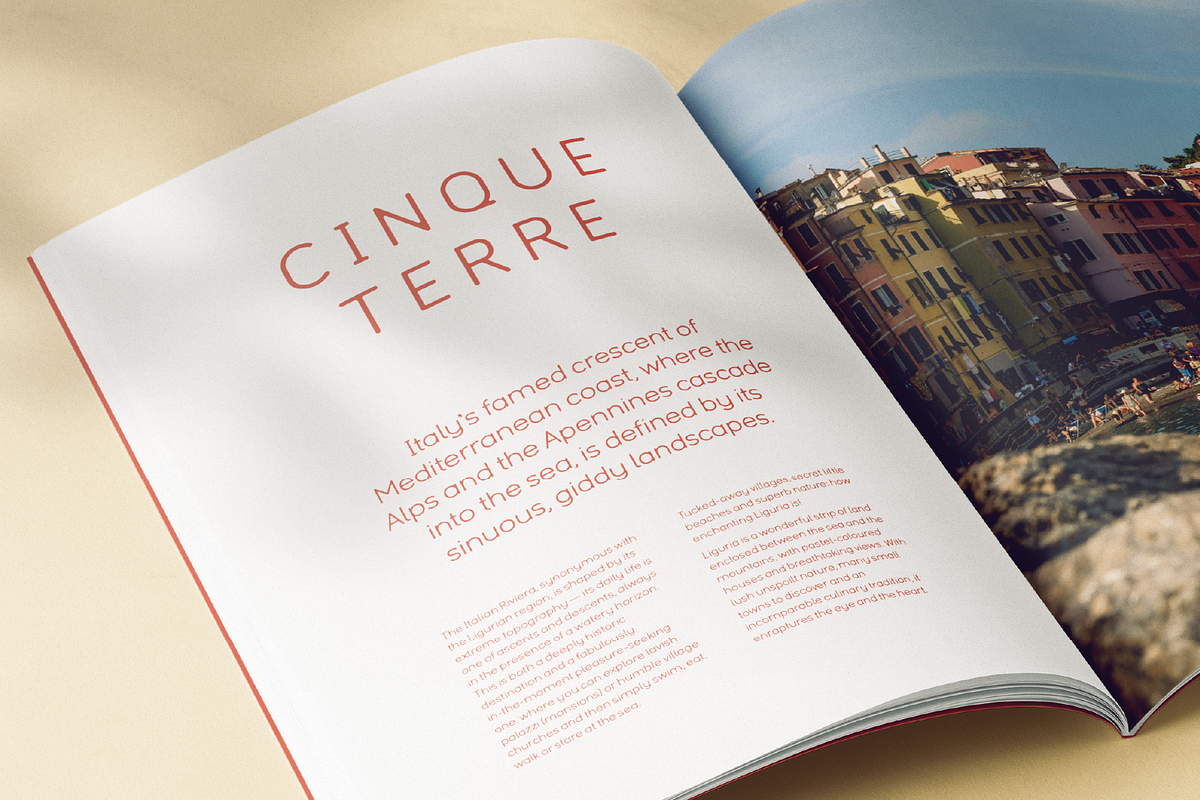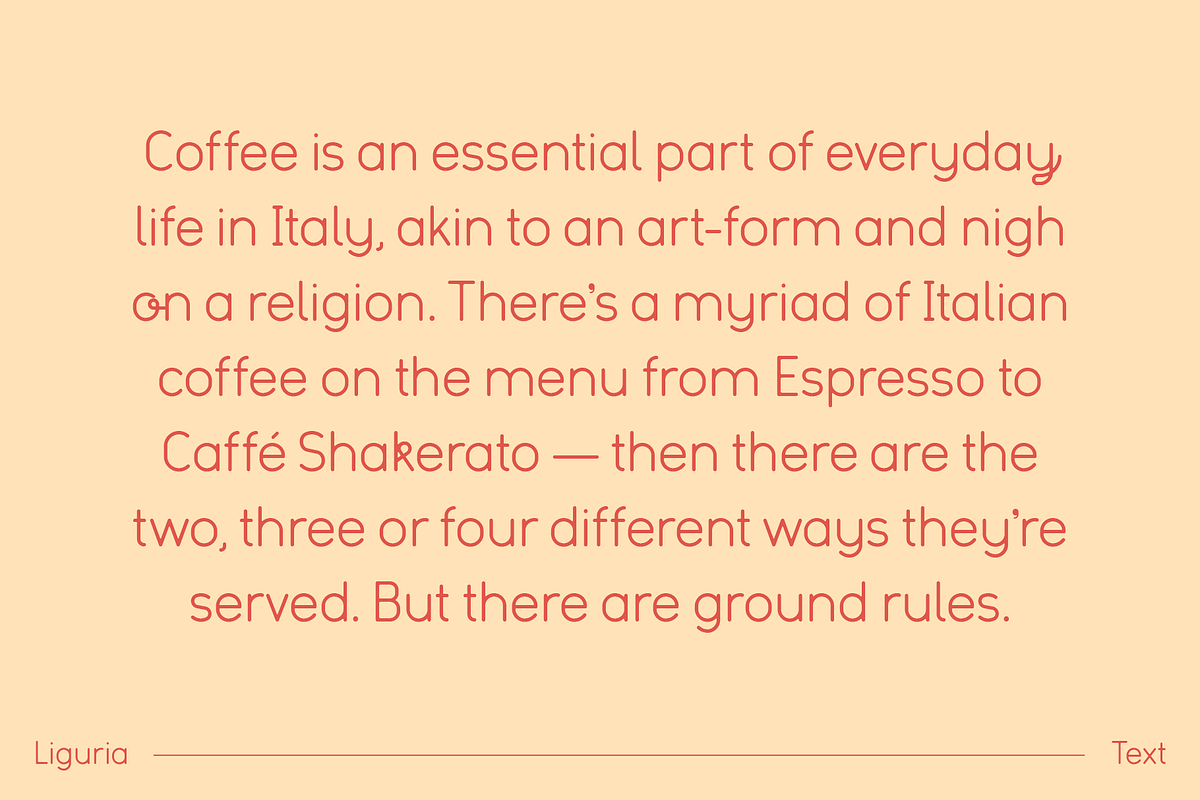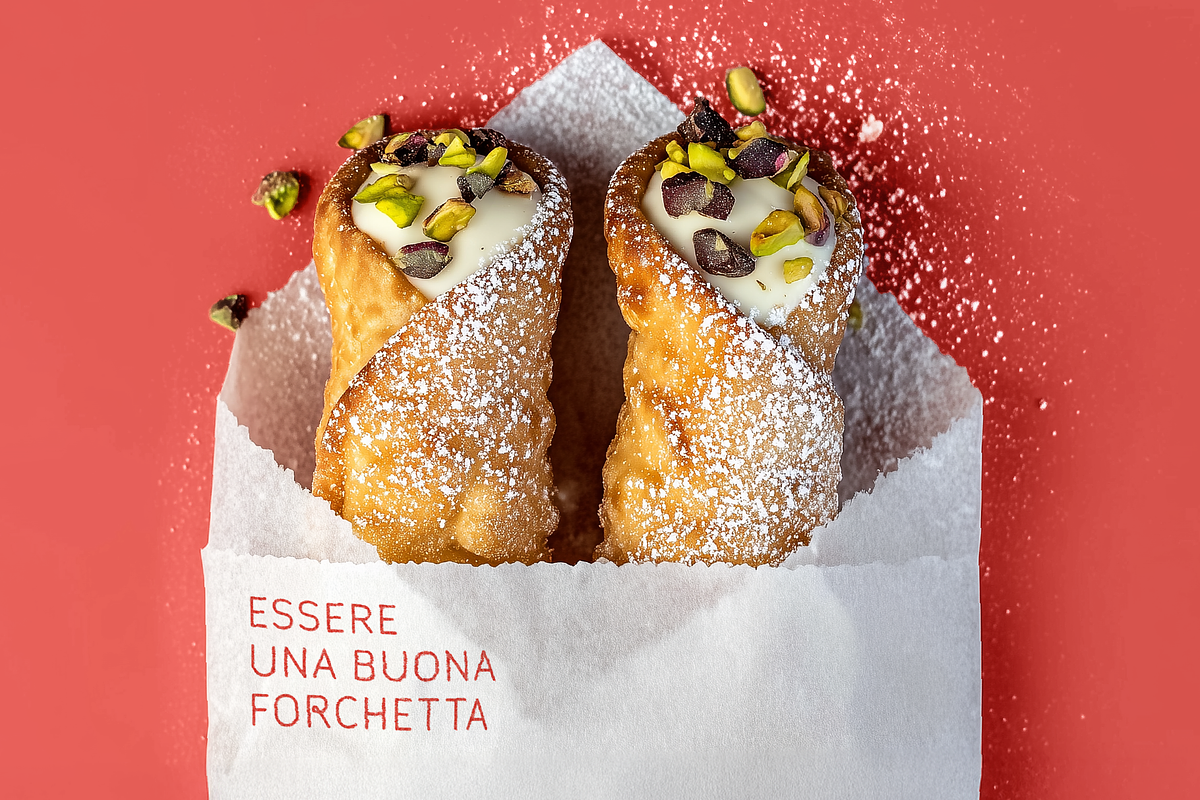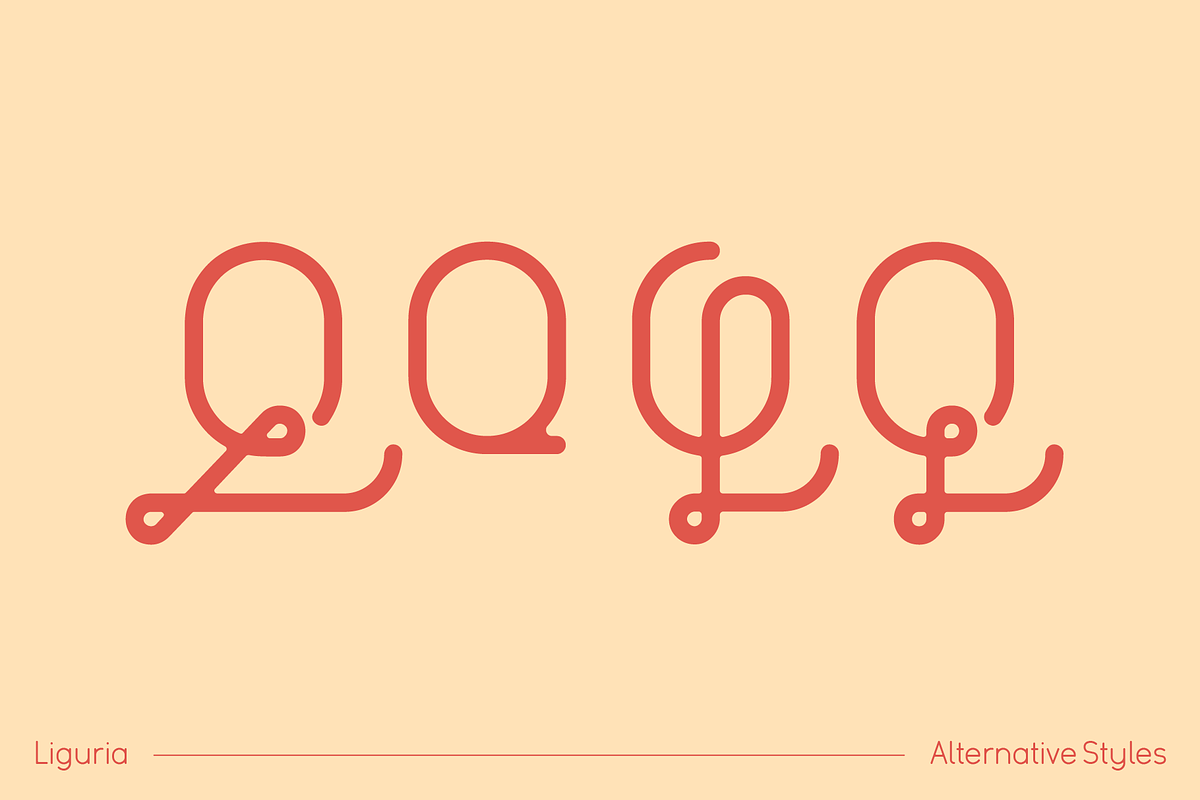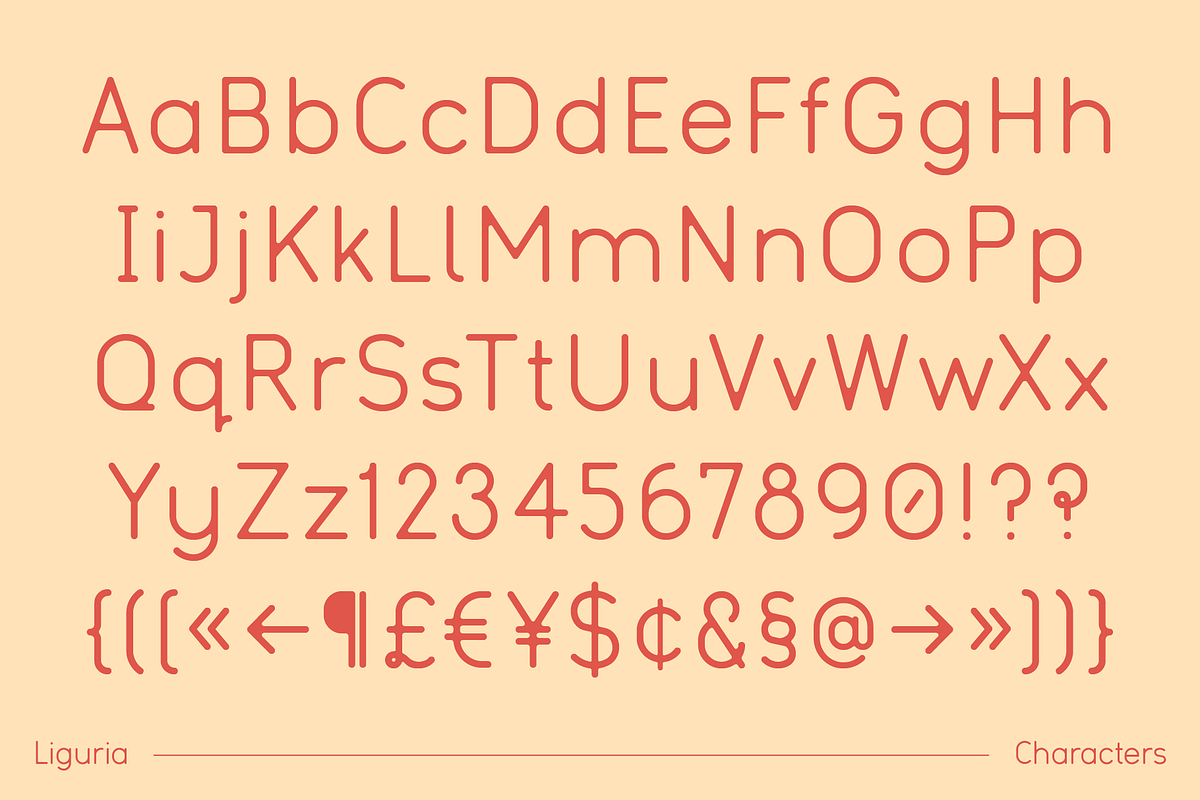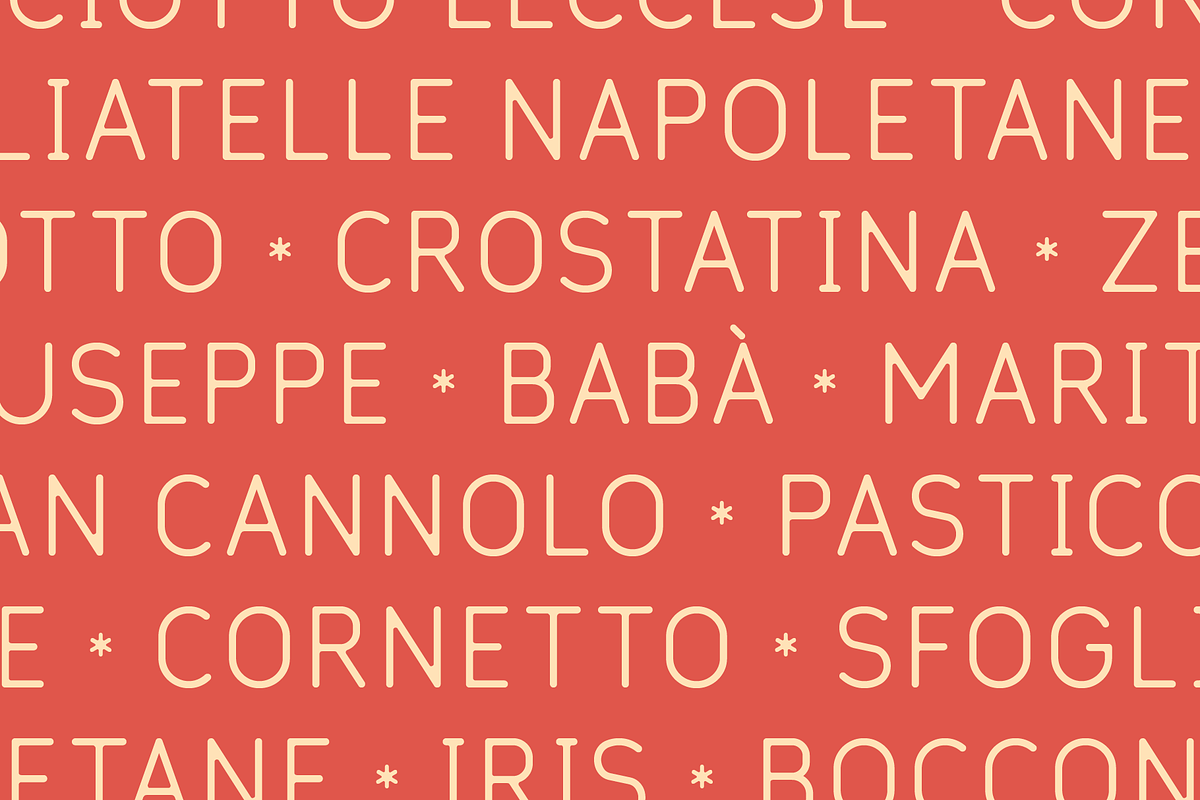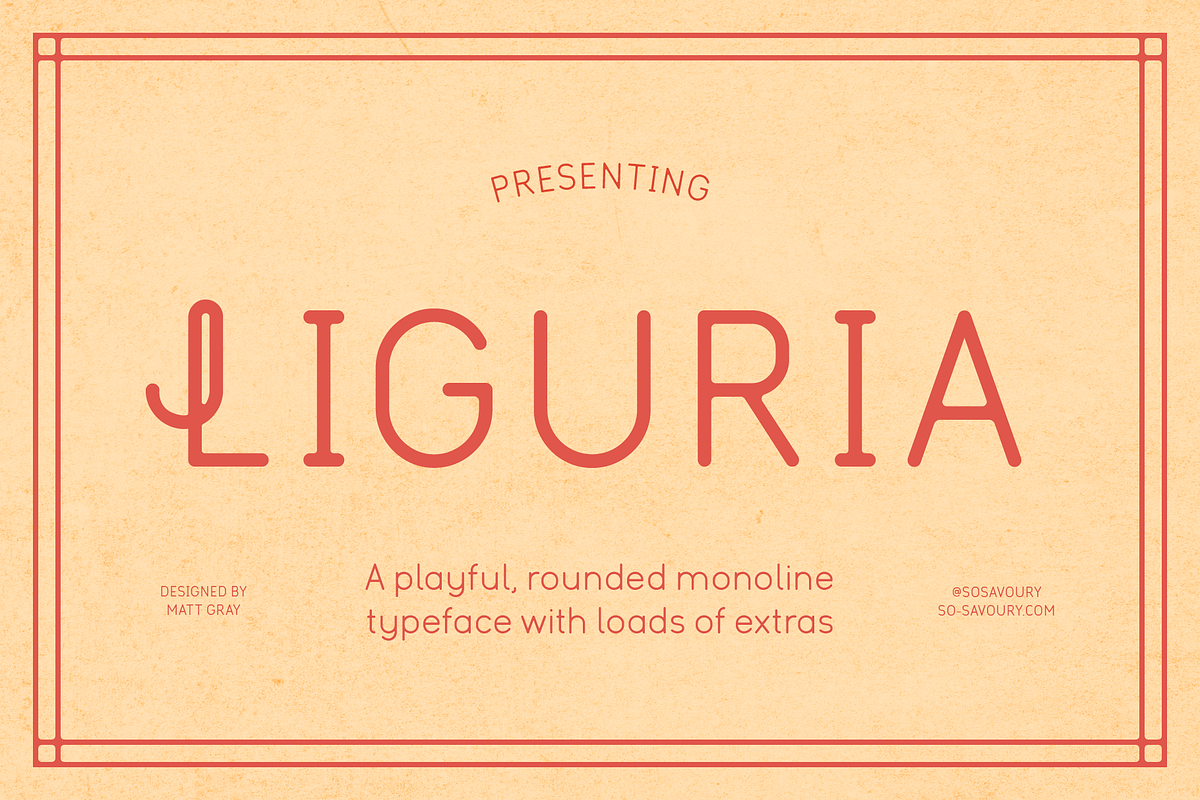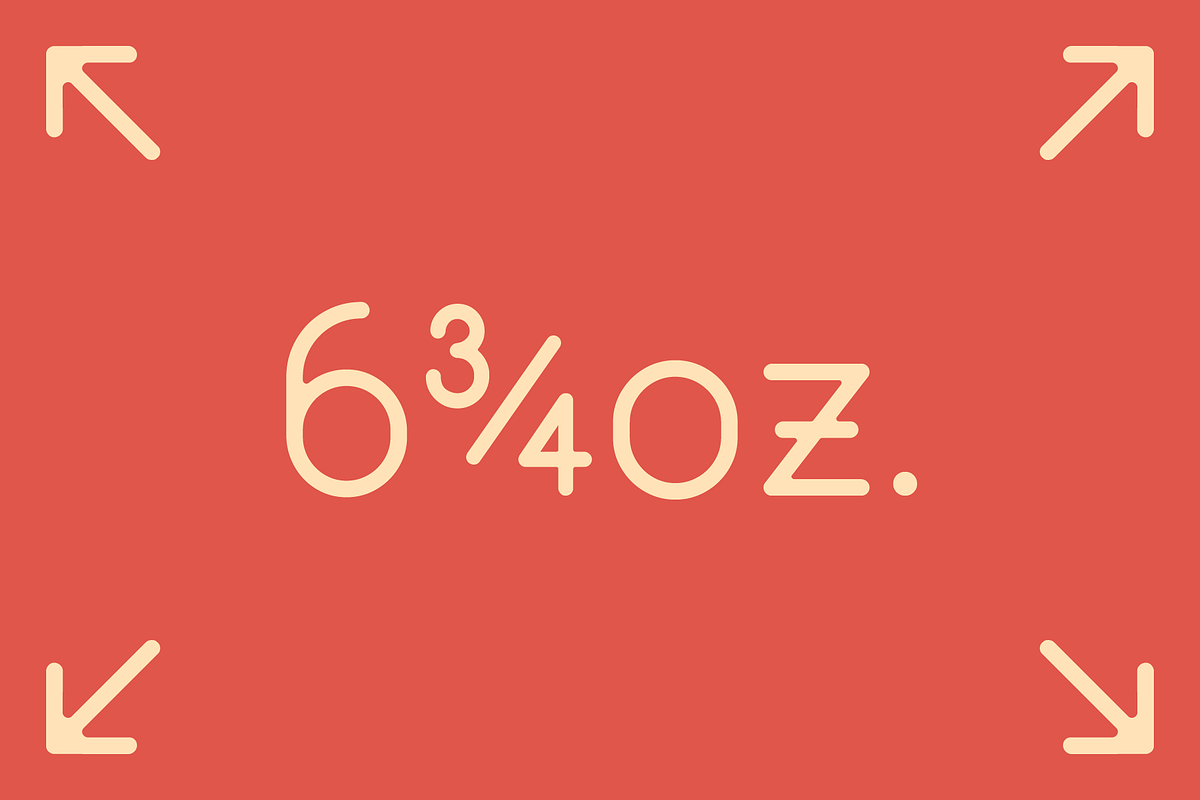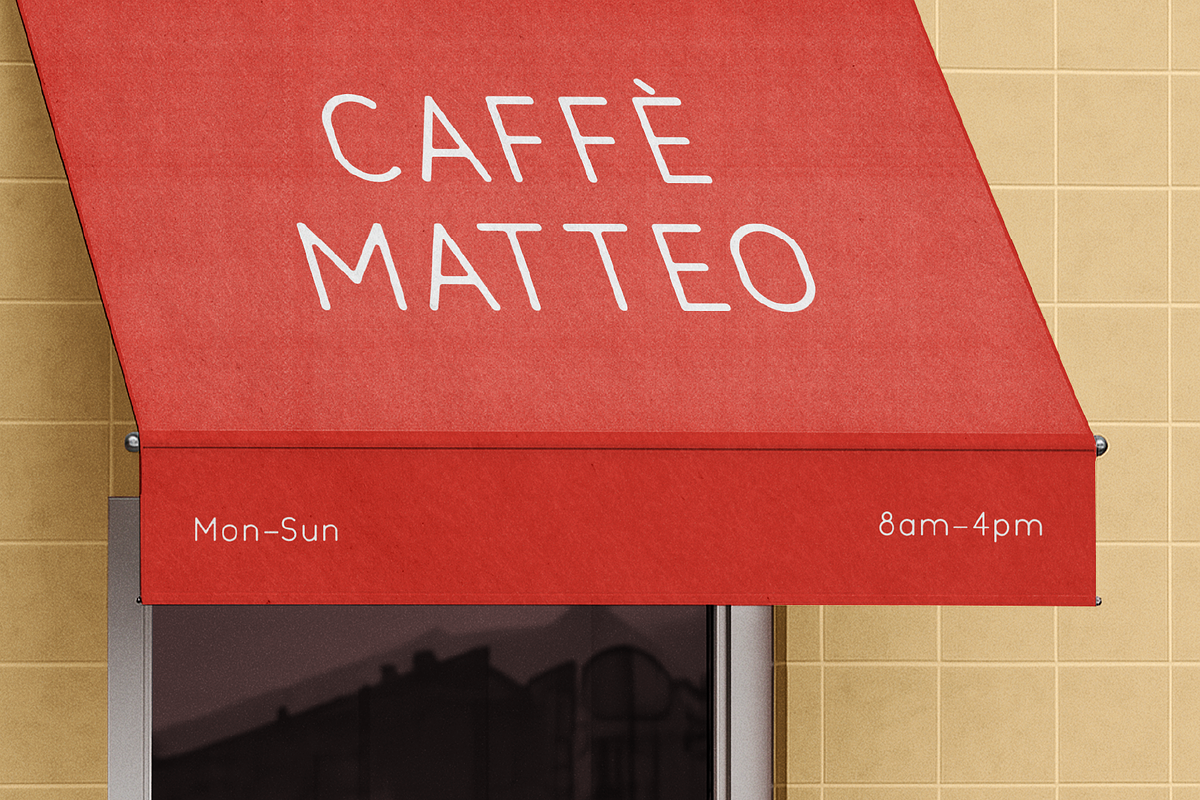
Liguria – Playful, Monoline Typeface
Presenting Liguria
A playful, rounded monoline typeface with loads of stylistic alternatives.
Inspiration
This typeface draws its inspiration from some lettering stamped onto paper bags in a pasticceria I stumbled across in Cinque Terre. Its monoline strokes and gently rounded joints echo the way ink naturally pooled at connection points on the original hand-stamped designs, giving each letter a warm, tactile feeling.
The result is a friendly, modern–retro font that blends geometric shapes with the expressive flow of script lettering. Smooth curves, open forms, and subtle quirks bring a sense of movement and joy, making it perfect for branding, packaging, signage, or any project seeking a touch of playfulness.